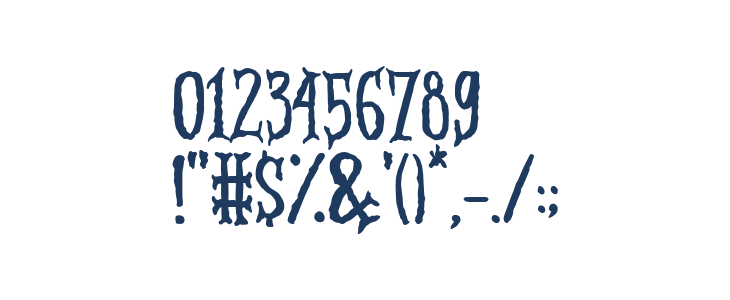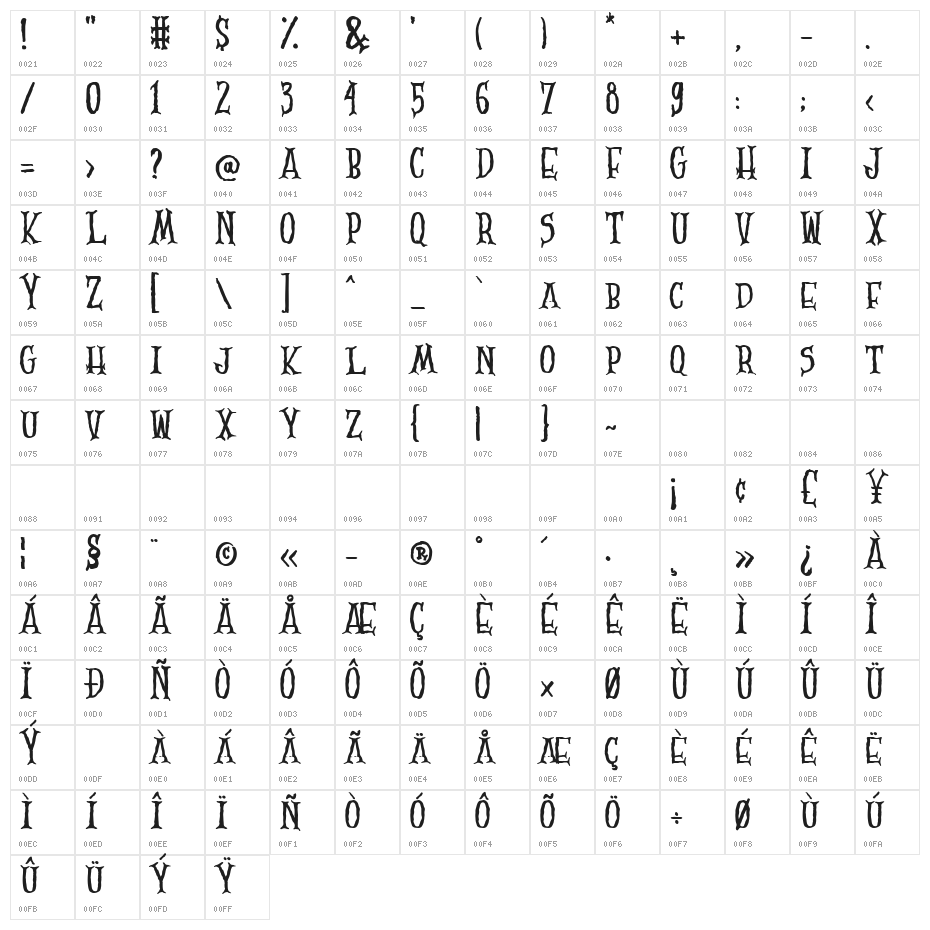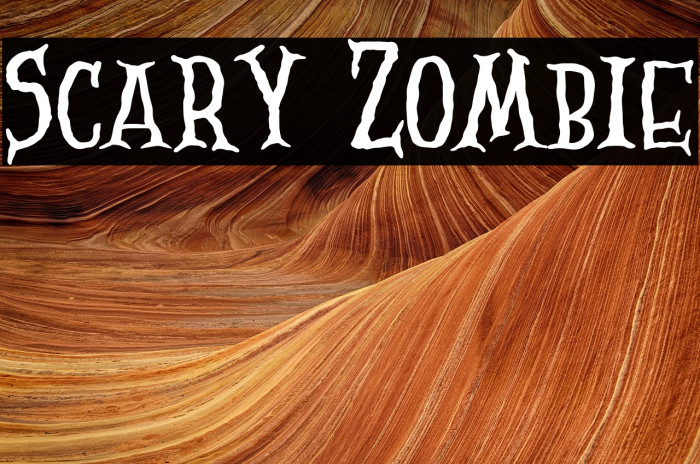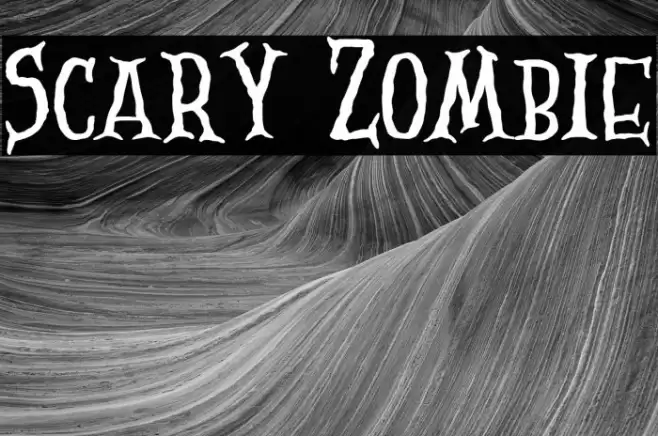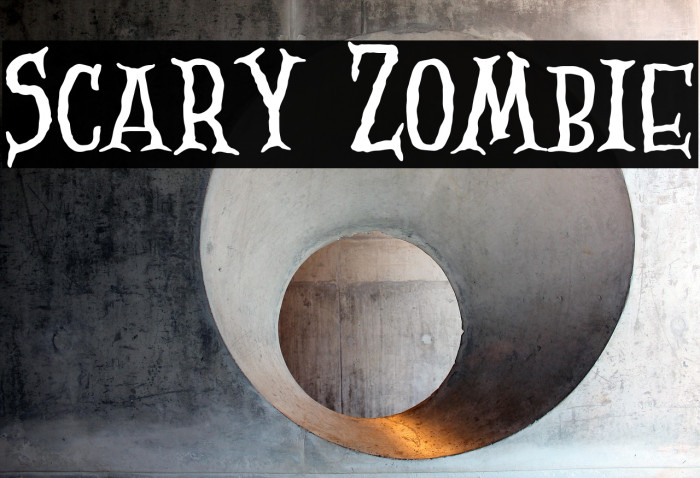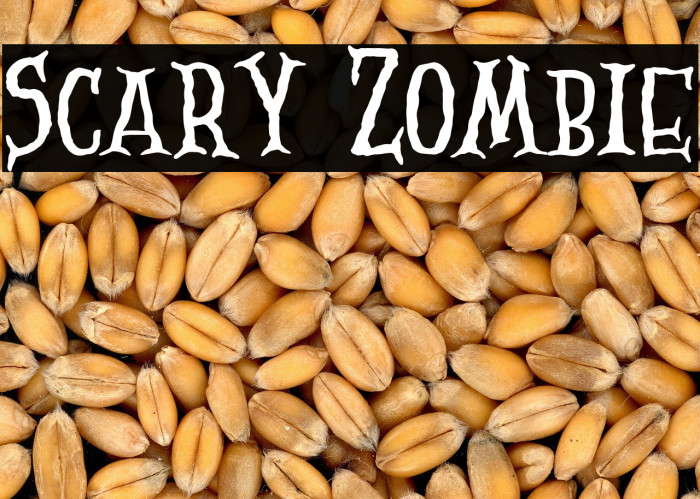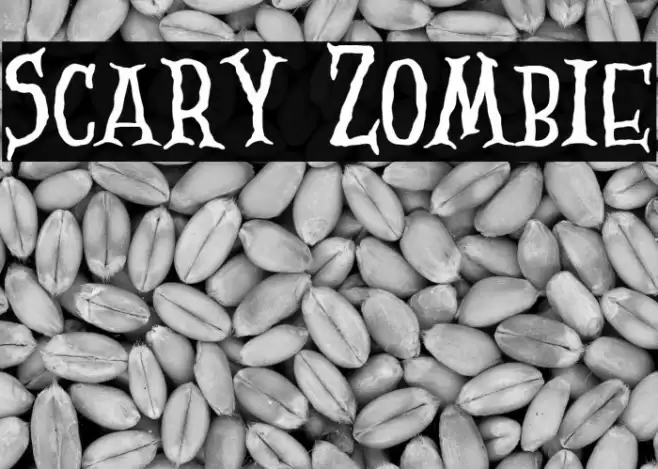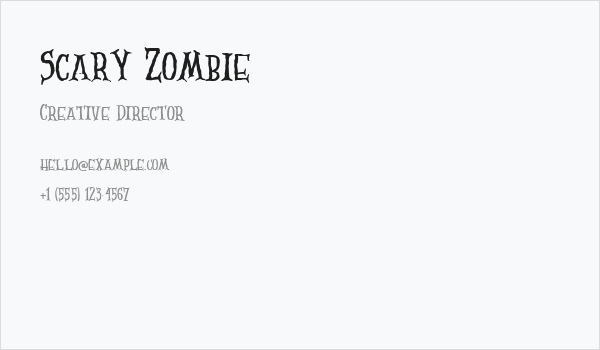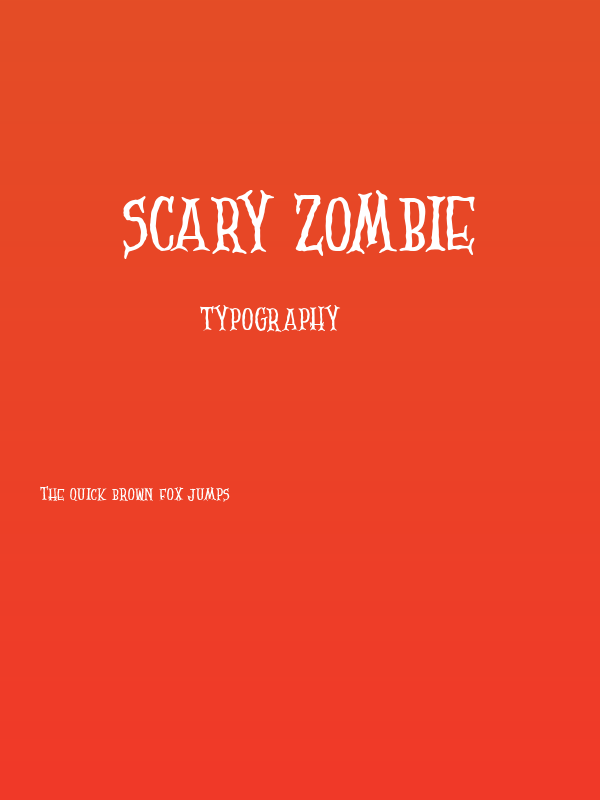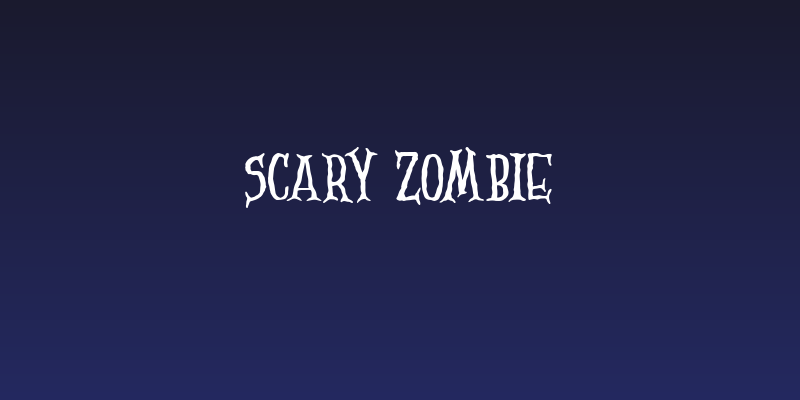
Scary Zombie Font
Scary Zombie Description
This font exudes a chilling and eerie vibe, perfect for Halloween or horror-themed projects. The letters are jagged and irregular, resembling the scratchy handwriting of a zombie or a creature from the dark. The uppercase and lowercase letters maintain a consistent style, with sharp edges and uneven strokes that add to the unsettling appearance. Numbers and special characters follow the same design principles, ensuring a cohesive look across all text elements. The overall aesthetic is both spooky and captivating, making it ideal for creating an atmosphere of suspense and fear.
| Use Case | Headlines, Posters, Themed Events |
| Proposed Projects | Ideal for Halloween invitations, horror movie posters, haunted house flyers, and spooky-themed merchandise. |